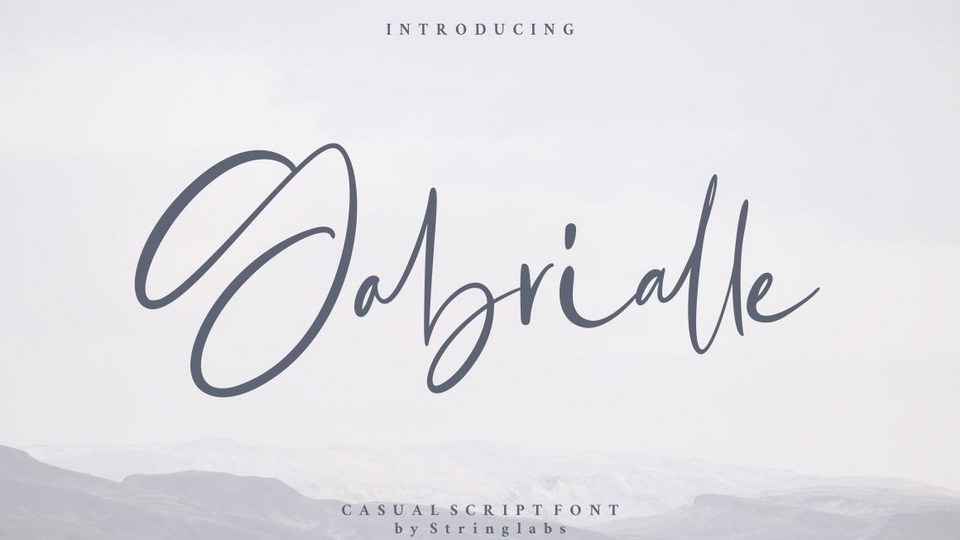
Download Gabrialle font, a casual script in signature style that contains modern, elegant, creative, professional and unique concept. Gabrialle font can be used for any variety of purposes.